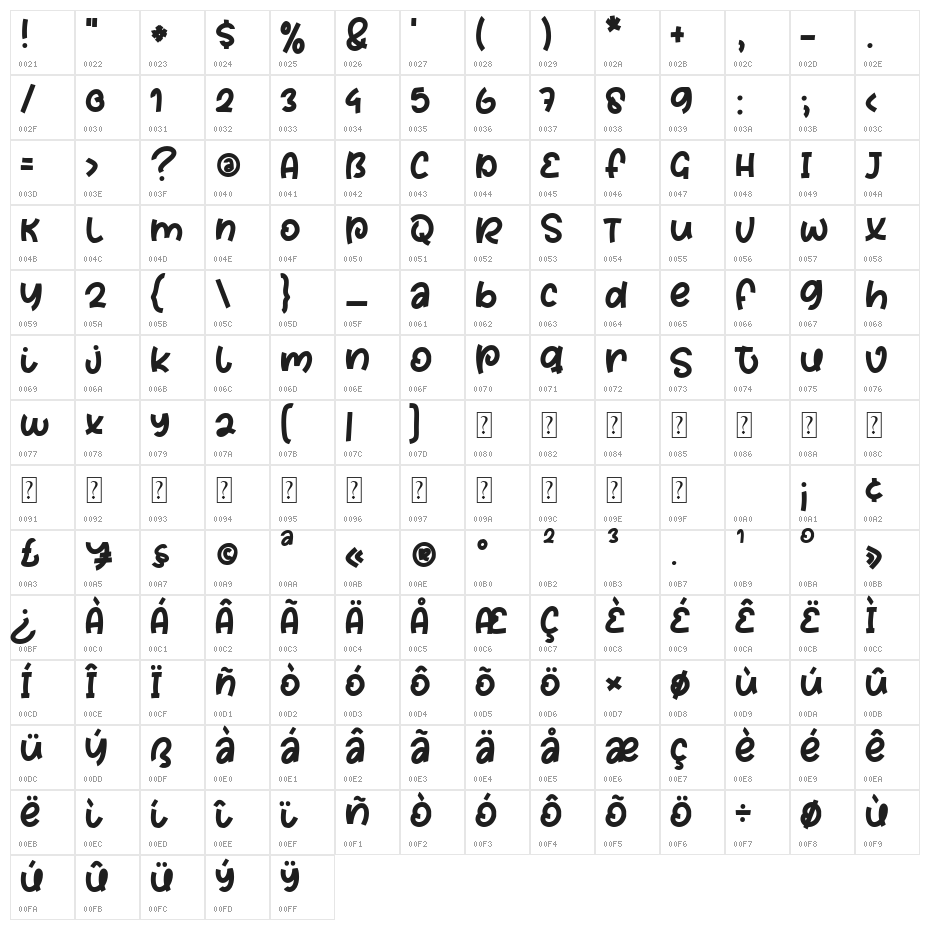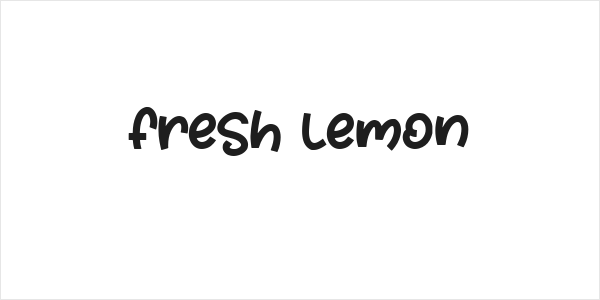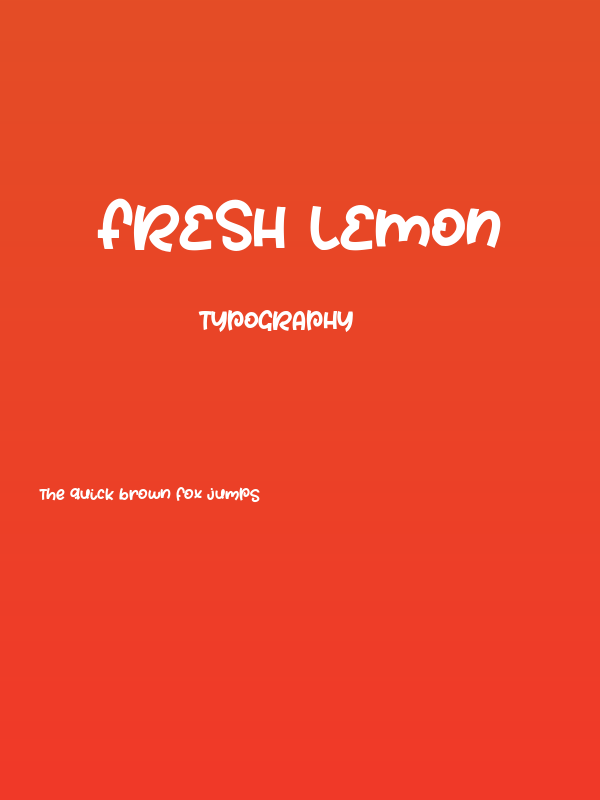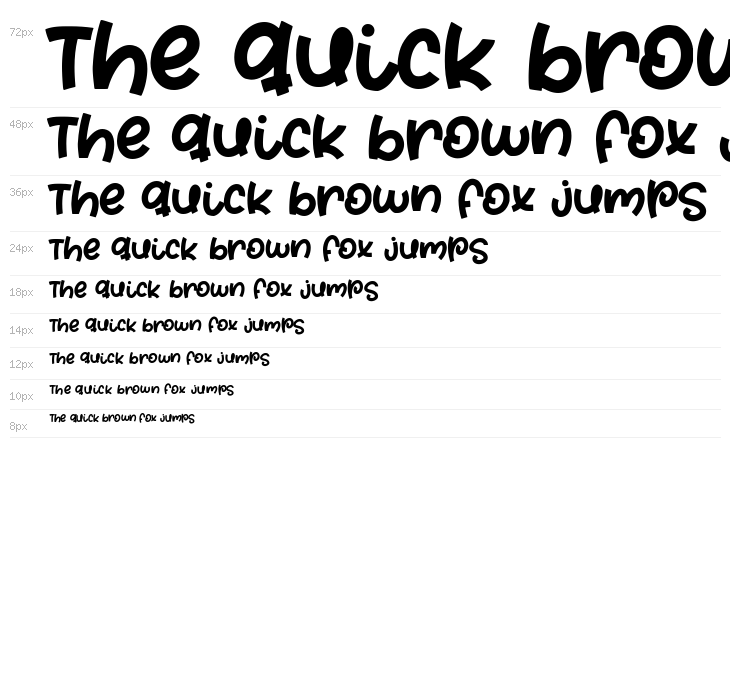
Fresh Lemon Font
Fresh Lemon Description
This playful and bold font features a handwritten style with a whimsical touch. The characters are rounded and slightly irregular, giving it a casual and friendly appearance. The uppercase and lowercase letters maintain a consistent flow, while the numbers and special characters complement the overall design. The strokes are thick, providing a strong visual impact, making it suitable for eye-catching designs. The font's unique charm lies in its ability to convey a sense of fun and creativity, making it ideal for projects that require a lively and engaging aesthetic.
| Use Case | Logos, Headlines, Posters |
| Proposed Projects | Ideal for children's books, playful branding, greeting cards, and creative posters. |